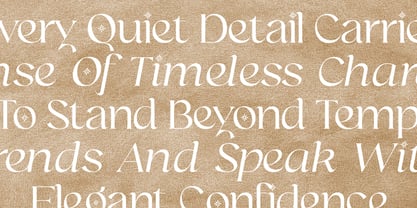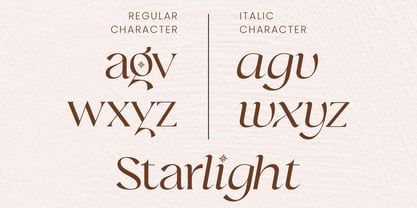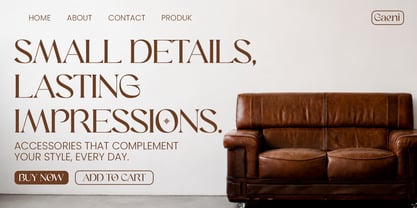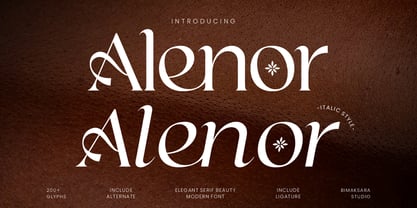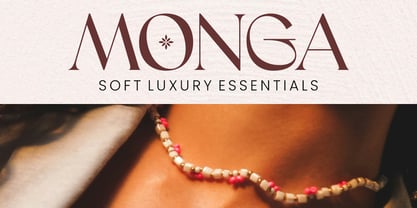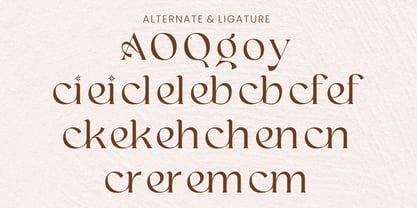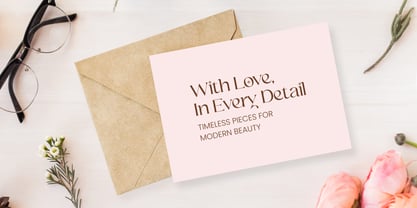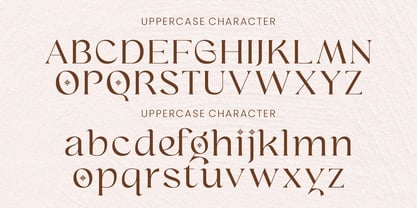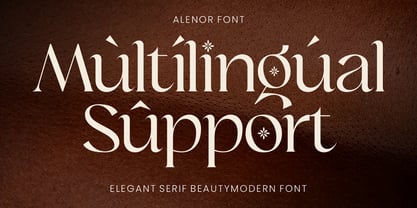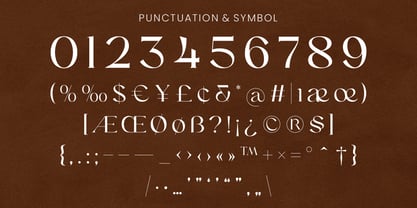
Alenor
La familia tipográfica Alenor fue diseñada por Nur Mokhamad Bismatulloh y publicada por Bimaksara. Alenor contiene 2 estilos y opciones de paquete familiar. Más información sobre esta familia
ALENOR is an elegant modern serif font crafted for luxury branding, sophisticated logos, and refined editorial design. Featuring graceful letterforms, stylish alternates, and a beautiful italic style, Alenor brings a timeless balance between classic beauty and contemporary elegance.
Designed to elevate fashion labels, jewelry brands, beauty products, wedding stationery, and premium packaging, Alenor delivers a distinctive and memorable visual identity. Its carefully crafted details make it perfect for both large display titles and elegant branding applications.
ALENOR – Elegant Serif Beauty Font
• Elegant modern serif design
• Beautiful alternates and ligatures
• Matching italic style
• Uppercase & lowercase characters
• Numerals and punctuation
• Multilingual support
• Perfect for logos, branding, editorials, packaging, fashion, beauty, and wedding projects
Whether you're creating a luxury brand identity, a stylish magazine layout, or sophisticated packaging, Alenor adds a touch of elegance and prestige to every design.
Multilingual support for Afrikaans, Albanian, Asu, Basque, Bemba, Bena, Breton, Chiga, Cornish, Dutch, English, Estonian, Filipino, Finnish, Friulian, Galician, German, Gusii, Indonesian, Irish, Italian, Kabuverdianu, Kalenjin, Kinyarwanda, Luo, Luxembourgish, Luyia, Machame, Makhuwa-Meetto, Makonde, Malagasy, Manx, Morisyen, North Ndebele, Nyankole, Oromo, Portuguese, Quechua, Romansh, Rombo, Rundi, Rwa, Samburu, Sango, Sangu, Scottish Gaelic, Sena, Shambala, Shona, Soga, Somali, Spanish, Swahili, Swedish, Swiss, and more.